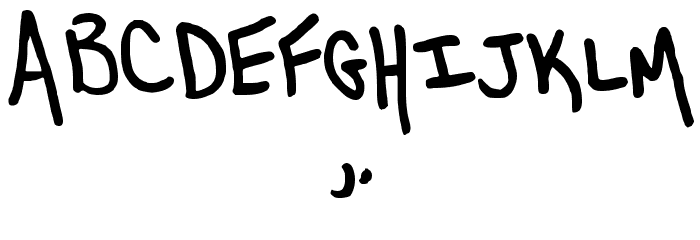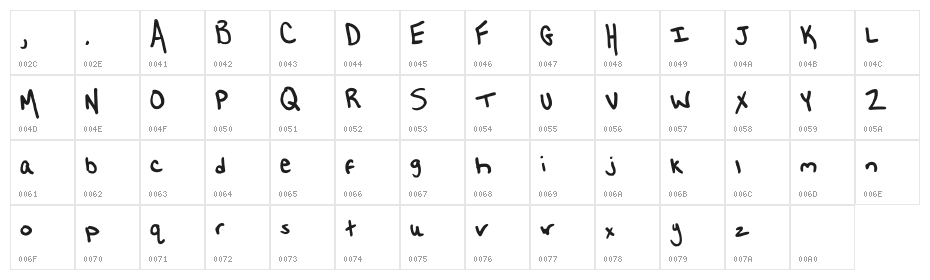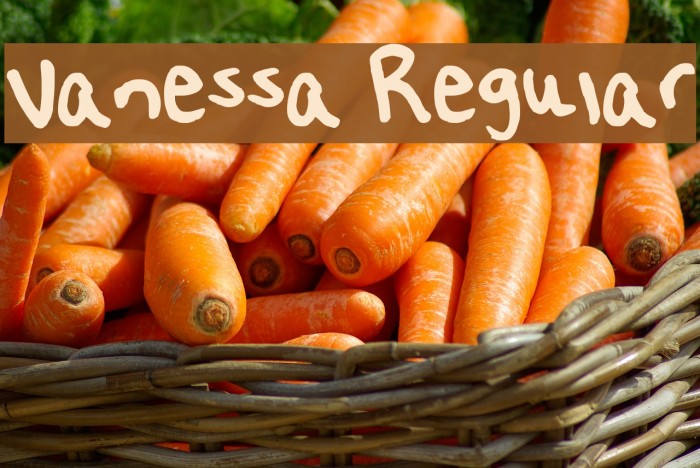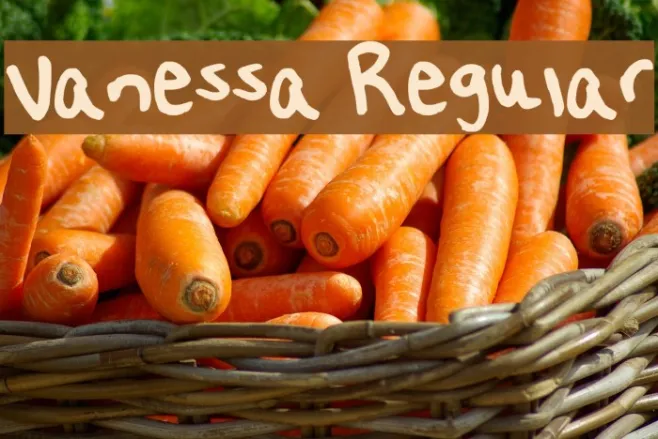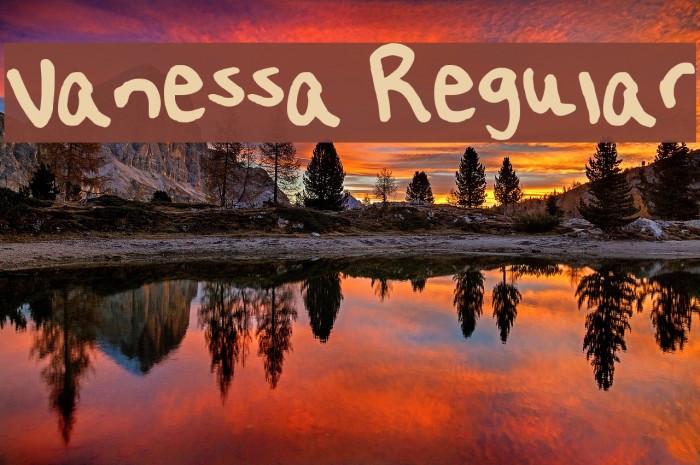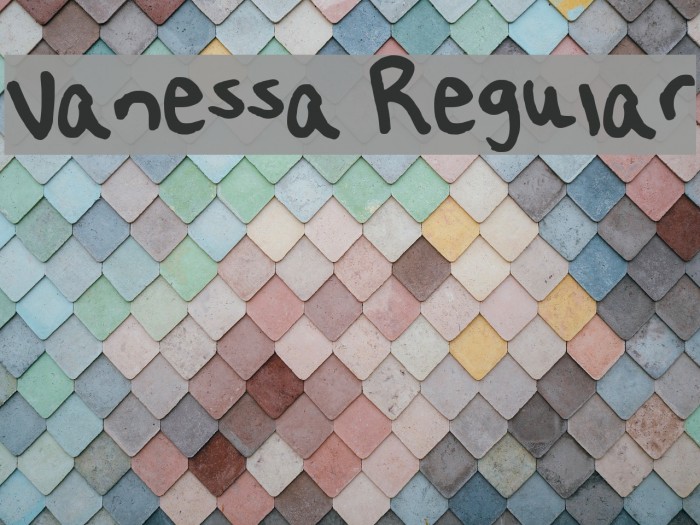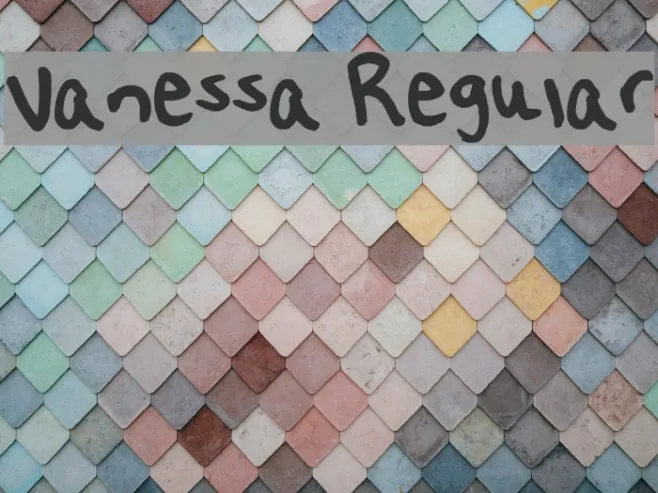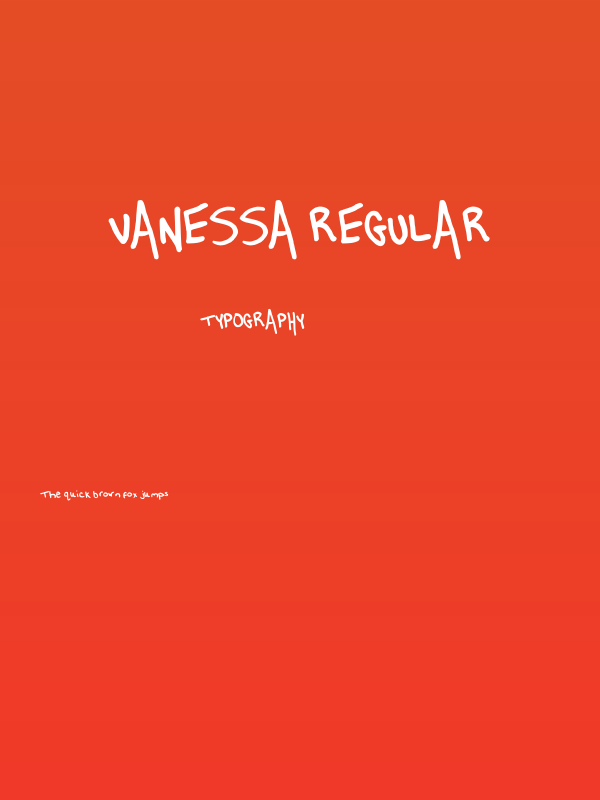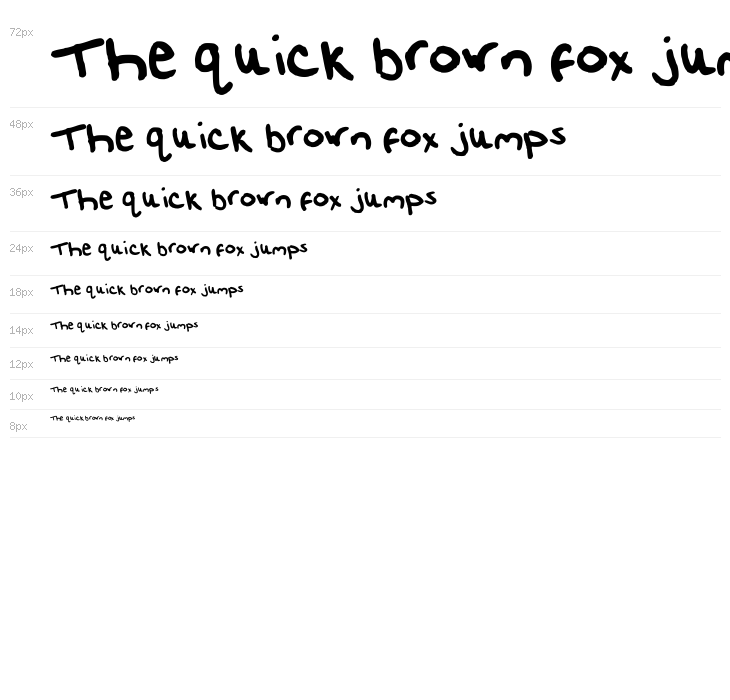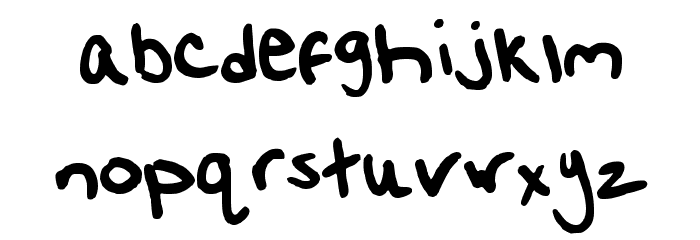
Vanessa Regular Font
Vanessa Regular Description
This font exhibits a casual, handwritten style with a playful and informal appearance. The characters are slightly irregular, giving it a personal and approachable feel. The strokes are consistent in thickness, contributing to a cohesive look across all letters. The uppercase and lowercase letters maintain a uniform height, while the numbers and special characters blend seamlessly with the alphabet. This font is ideal for projects that require a friendly and relaxed tone, such as personal invitations, casual branding, or creative projects.
| Proposed Projects | Ideal for personal invitations, casual branding, and creative projects. |